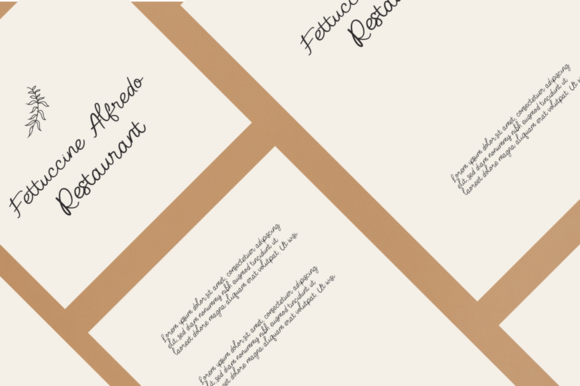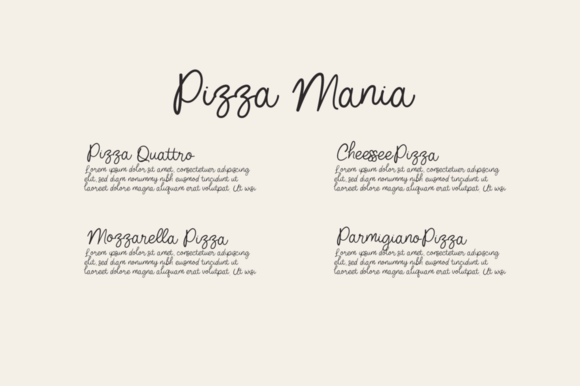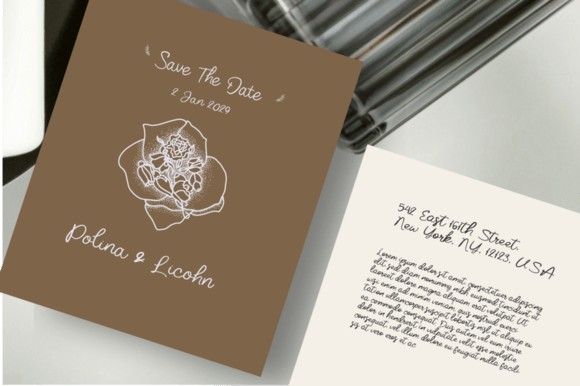
Introduction to Lavendary Ground Script Font
Have you ever found yourself daydreaming about a design project that exudes elegance and whimsy? Perhaps it’s a wedding invitation, a handmade logo, or a beauty product label that you want to make truly special. Whatever the creative project may be, the right font can make all the difference. That’s where the enchanting Lavendary Ground Script Font comes in – a handwritten font that embodies the soft, feminine charm of lavender flowers.
This high-quality design resource is perfect for designers looking to add a touch of warmth and personality to their work. With its fluid, springy letterforms and natural flow, the Lavendary Ground Script Font is an excellent choice for a wide range of creative projects, from wedding details to social media content. And the best part? It’s available for free download, complete with a transparent background, making it easy to integrate into your designs.
Key Features of Lavendary Ground Script Font
- Unique, elegant script font design ideal for creative projects and personal branding.
- High-quality, professional design resource suitable for various applications, including logos, invitations, and more.
- Perfect for adding a touch of elegance and sophistication to any creative project, from wedding invitations to business cards.
Honest Review: Lavendary Ground Script Font
I recently stumbled upon the Lavendary Ground Script Font and I must say it’s a great addition to any creative project. This font is perfect for designers looking for a high-quality, elegant script font that can elevate their design work.
What works well about this font is its versatility. It’s perfect for use on its own or in combination with other fonts to create a unique design. The free download option is also a huge plus, making it a valuable resource for designers on a budget.
The font features a transparent background, making it easy to use in various design scenarios. It’s also well-suited for use in digital design projects, such as logo design, branding, and web design.
- High-quality, elegant script font
- Versatile font suitable for various design projects
⚠️ One limitation I’ve noticed is that the font may not be suitable for use in very small sizes, as the script style can become difficult to read. However, this is a minor issue and can be easily worked around.
Overall, I’m impressed with the Lavendary Ground Script Font and would definitely recommend it to designers looking for a high-quality, elegant script font for their creative projects. It’s a valuable addition to any design resource library. ✨
The Lavendary Ground Script Font is a high-quality, free download design resource ideal for creative projects. With its elegant and sophisticated look, it’s perfect for adding a touch of luxury to your designs.
Use the Lavendary Ground Script Font to add a touch of elegance to your designs. Experiment with different font sizes and styles to achieve the desired look.
The Lavendary Ground Script Font is perfect for:
Wedding invitations and stationery